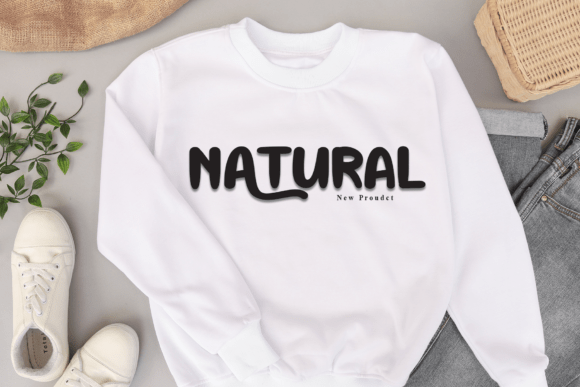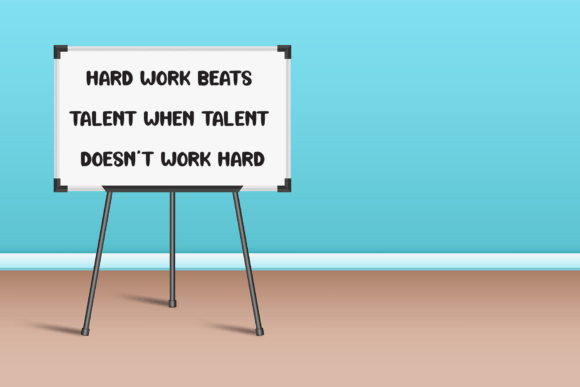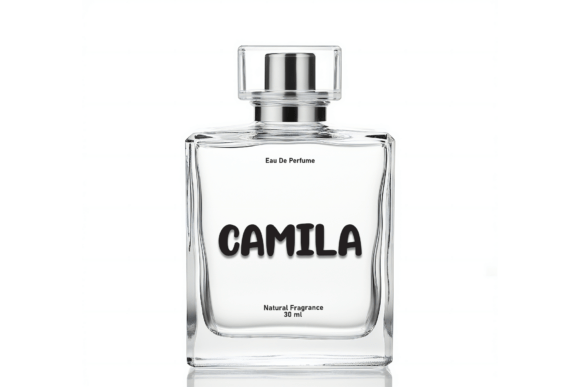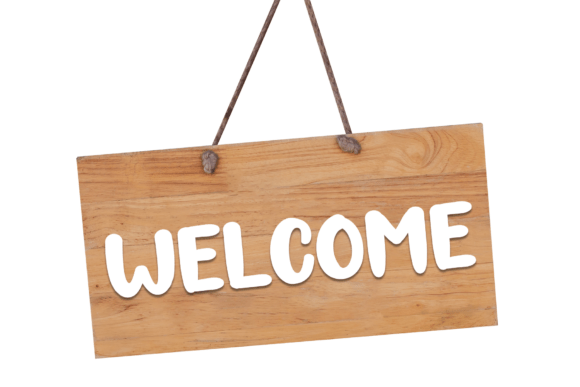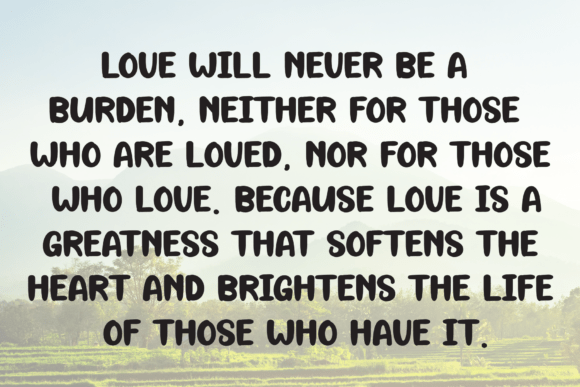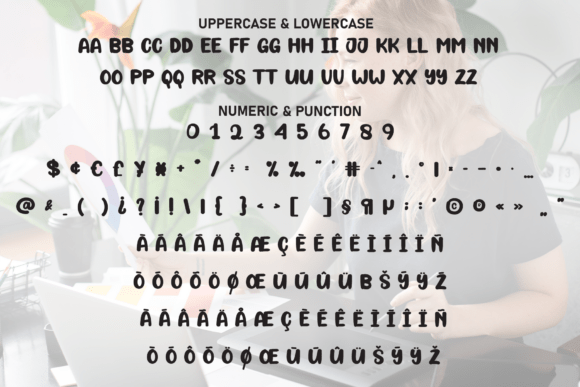
Introduction to Designer Darling Font
As a designer, have you ever stumbled upon a font that instantly captures the essence of your creative vision? Perhaps it’s the subtle imperfections or the delicate flair that elevates your design from ordinary to extraordinary. For me, that font is the Designer Darling Font – a charming, handwritten display font that has become an indispensable design resource.
With its effortless charm and versatility, the Designer Darling Font is perfect for adding a sprinkle of whimsy to your creative projects. Whether you’re crafting wedding invitations, greeting cards, or any other design project that requires a dash of joy, this font is sure to make a lasting impression. And the best part? You can download it for free, complete with a transparent background, making it a high-quality addition to your digital toolbox.
Key Features of Designer Darling Font
- High-quality, professional font suitable for creative projects and design resources.
- Unique, elegant design with a transparent background, ideal for overlaying on images or graphics.
- Perfect for designers, artists, and creatives looking for a stylish, versatile font for their projects.
Honest Review: Designer Darling Font
I recently had the chance to work with the Designer Darling Font, and I must say it’s been a delightful experience. As a designer, I’m always on the lookout for high-quality design resources that can elevate my creative projects.
- The Designer Darling Font is available in a transparent background, making it super easy to use in a variety of design scenarios.
- The font is highly customizable, allowing me to tweak the settings to fit my specific design needs.
- The quality of the font is top-notch, with crisp lines and smooth typography.
Another limitation is that the font is not as extensive as some other popular fonts, with only a limited range of weights and styles available.
Overall, I would still highly recommend the Designer Darling Font to designers who are looking for a high-quality, free design resource.
Tips for Getting the Most Out of Designer Darling Font
Experiment with different font sizes, colors, and styles to create a visually appealing design. Use the transparent background feature to achieve a seamless integration with your design elements.
The Designer Darling Font is ideal for creative projects, such as logo design, branding, and typography-based artwork. Its high-quality design and transparent background feature make it a valuable design resource for designers and artists.
Q: Does the Designer Darling Font have a transparent background?
Yes, the Designer Darling Font comes with a transparent background, making it easy to use in a variety of design scenarios. This feature allows you to layer the font over images or other design elements, creating a seamless and professional look.